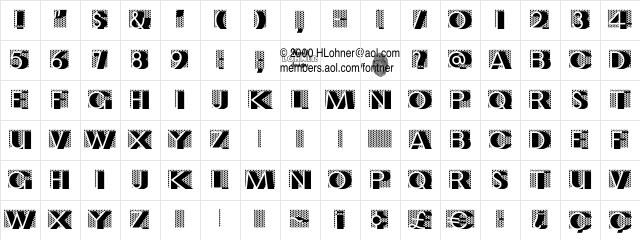
Le Film Classic
Style: Classic
Design Context for Le Film
Le Film wears its vintage influences proudly, with letterforms that recall mid-century signage, classic packaging, and nostalgia-driven design.
Font Pairing: Combine Le Film with a simple slab or neutral sans - period-accurate companions reinforce the vintage feel without competing for attention.
Pro Tip: Lean into Le Film's period character by pairing it with aged paper textures, muted colour palettes, and vintage illustration styles.